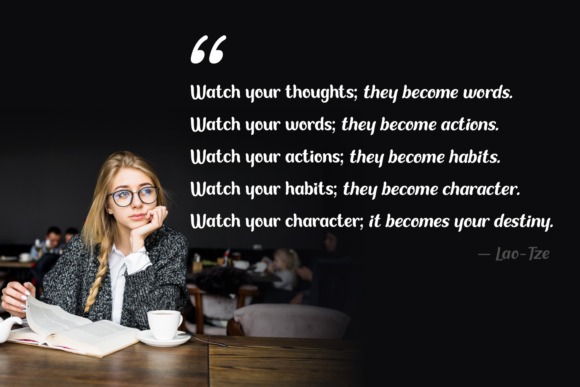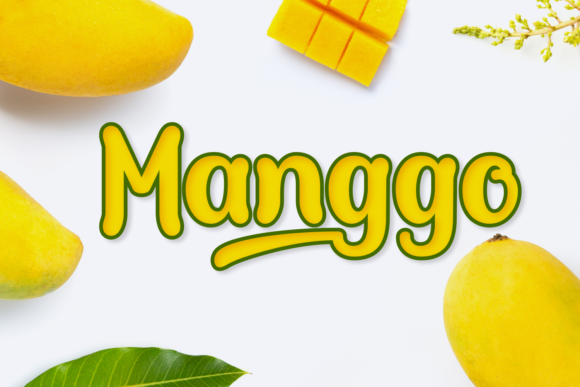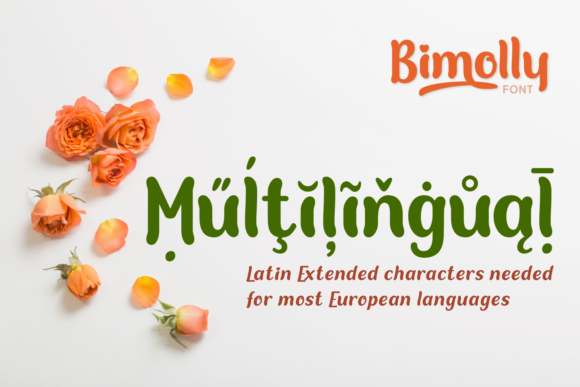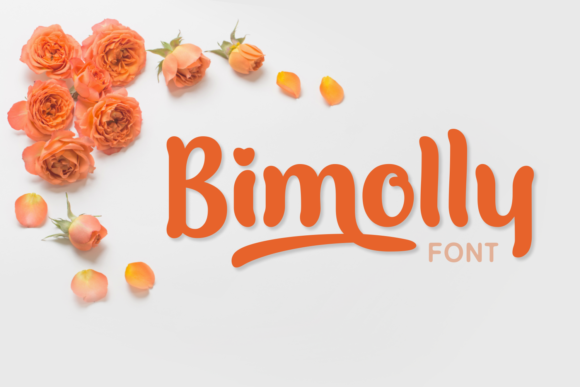
Bimolly Font: A Sweet and Quirky Handwritten Font for Designers and Crafters
Are you looking for a font that adds a touch of personality to your designs? Look no further than Bimolly Font, a sweet and quirky handwritten font that’s perfect for designers and crafters alike. Designed with the help of a beautiful brush pen, Bimolly Font is a unique and versatile font that can be used in a wide variety of contexts.
The Story Behind Bimolly Font
Bimolly Font was created with the goal of capturing the charm and character of handwritten lettering. The font’s designer used a beautiful brush pen to craft each letter, resulting in a font that’s both neat and lettered. The result is a font that’s incredibly versatile, fitting a wide range of design needs.
What Makes Bimolly Font So Special?
So, what sets Bimolly Font apart from other fonts? Here are just a few reasons why designers and crafters love this font:
- Unique Character: Bimolly Font has a unique character that’s both sweet and quirky. The font’s handwritten feel makes it perfect for designs that need a personal touch.
- Versatility: Bimolly Font is incredibly versatile, making it suitable for a wide range of design contexts. From invitations and greeting cards to blog posts and social media graphics, this font can do it all.
- Easy to Read: Despite its handwritten feel, Bimolly Font is incredibly easy to read. This makes it perfect for designs that need to communicate a message clearly and effectively.
- Perfect for Crafters: Bimolly Font is a great choice for crafters who want to add a personal touch to their projects. Whether you’re making signs, banners, or other DIY projects, this font is sure to add a touch of charm.
Using Bimolly Font in Your Designs
So, how can you use Bimolly Font in your designs? Here are a few ideas to get you started:
- Invitations and Greeting Cards: Bimolly Font is perfect for invitations and greeting cards. The font’s handwritten feel makes it ideal for special occasions like weddings, birthdays, and holidays.
- Blog Posts and Social Media Graphics: Bimolly Font is also great for blog posts and social media graphics. The font’s unique character makes it perfect for adding a personal touch to your online content.
- Signs and Banners: Bimolly Font is a great choice for signs and banners. The font’s easy-to-read design makes it perfect for outdoor signs and displays.
- DIY Projects: Finally, Bimolly Font is perfect for DIY projects like crafts, scrapbooking, and other handmade items. The font’s charming feel makes it ideal for adding a personal touch to your creations.
Tips for Getting the Most Out of Bimolly Font
Here are a few tips for getting the most out of Bimolly Font:
- Experiment with Different Sizes: Bimolly Font looks great in a variety of sizes. Experiment with different sizes to find the one that works best for your design.
- Pair with Other Fonts: Bimolly Font pairs well with other fonts. Try pairing it with a bold font for a striking contrast.
- Use in Combination with Images: Bimolly Font looks great in combination with images. Try using it to add a caption to a photo or illustration.
Bimolly Font is a sweet and quirky handwritten font that’s perfect for designers and crafters alike. With its unique character, versatility, and easy-to-read design, this font is sure to add a touch of personality to your designs. Whether you’re making invitations, blog posts, or DIY projects, Bimolly Font is a great choice. So why not give it a try and see what amazing designs you can create?